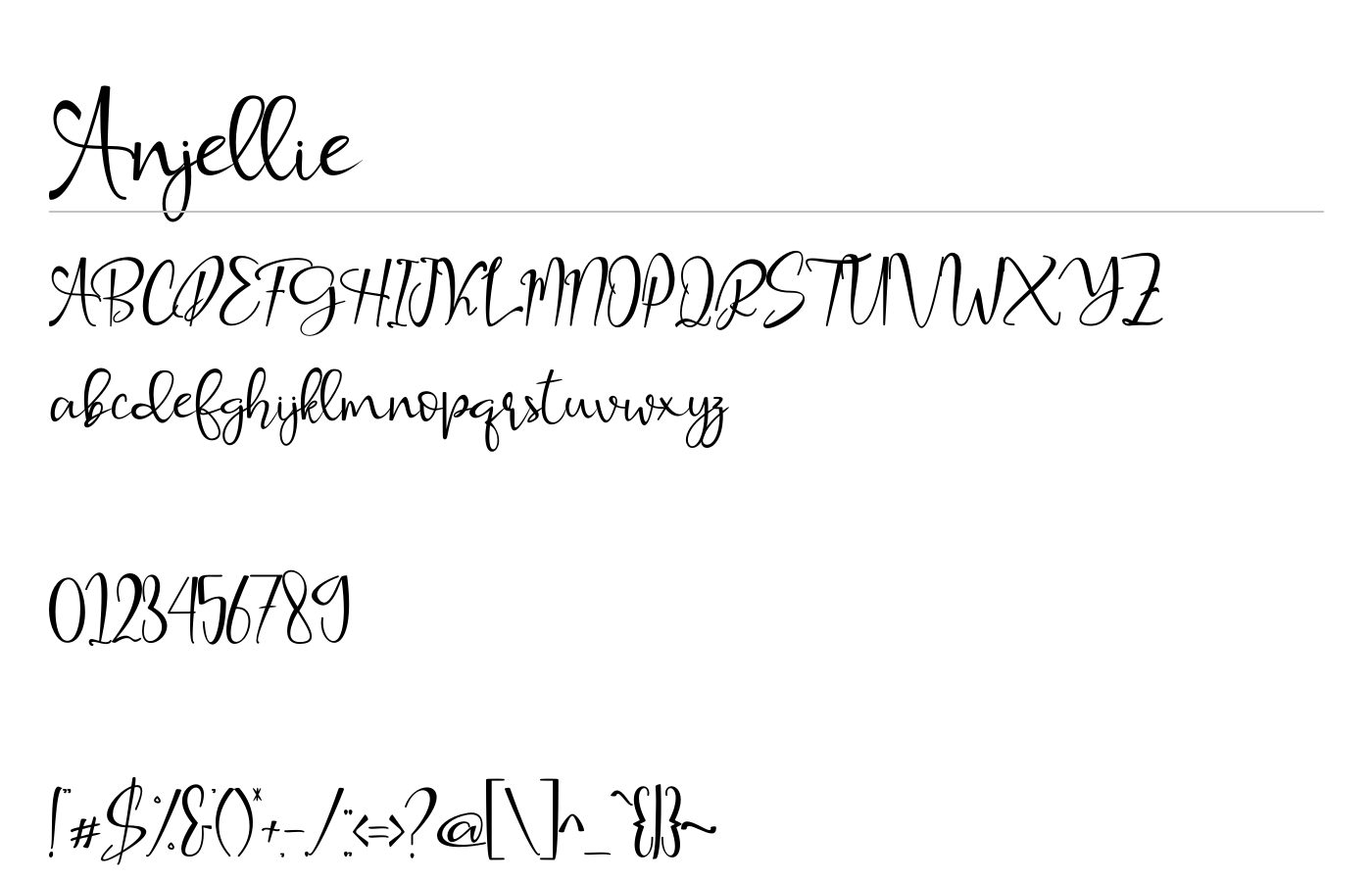
Anjellie is a delicate and elegant script font featuring slender, flowing strokes that convey a refined and graceful personality. Its thin, slightly irregular lines give it a hand-lettered feel, making it ideal for projects that require a feminine, romantic touch such as invitations, branding, and editorial accents. This font works beautifully for sophisticated and creative designs that need a personal and artistic flair.
Anjellie Font